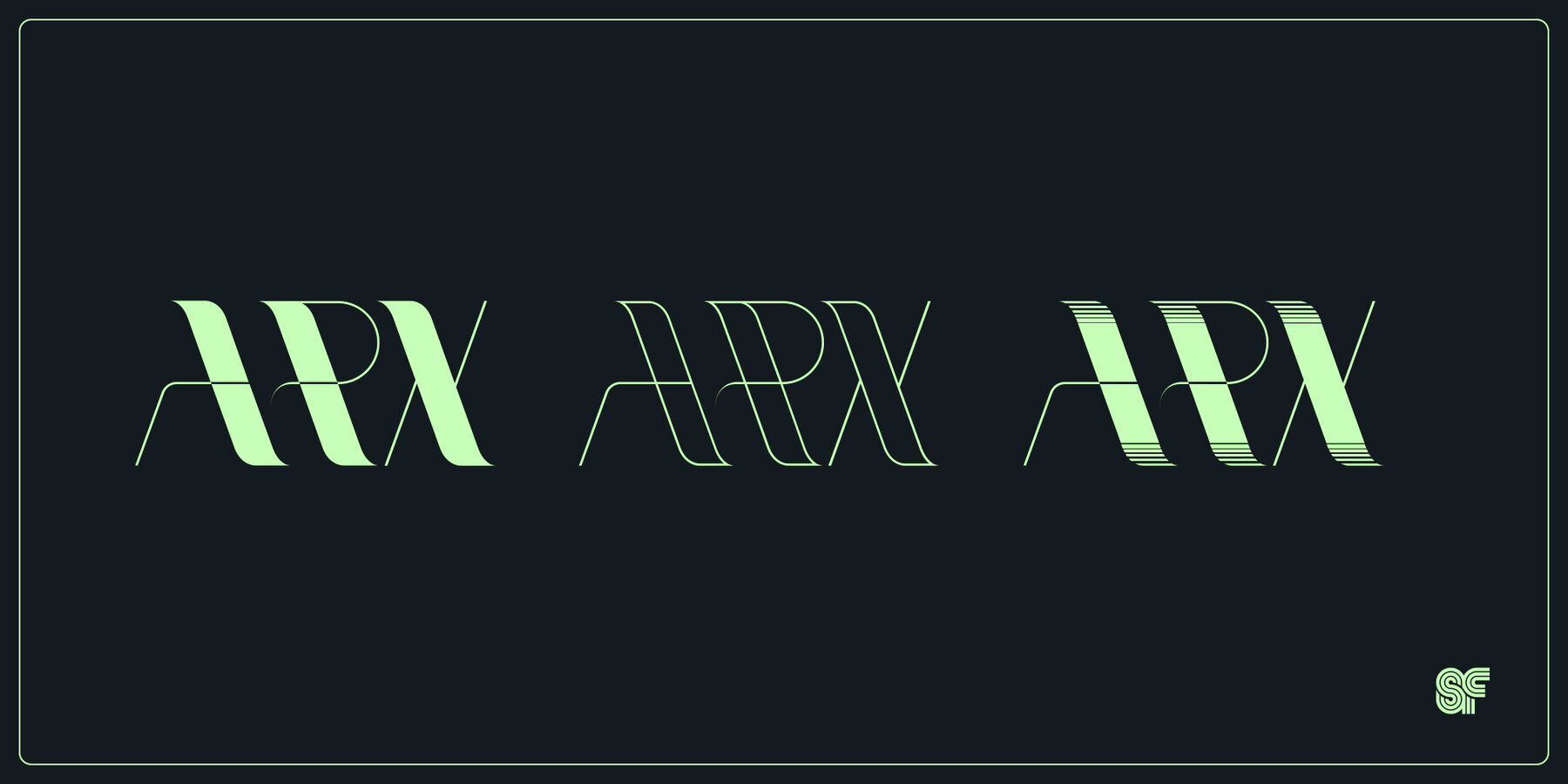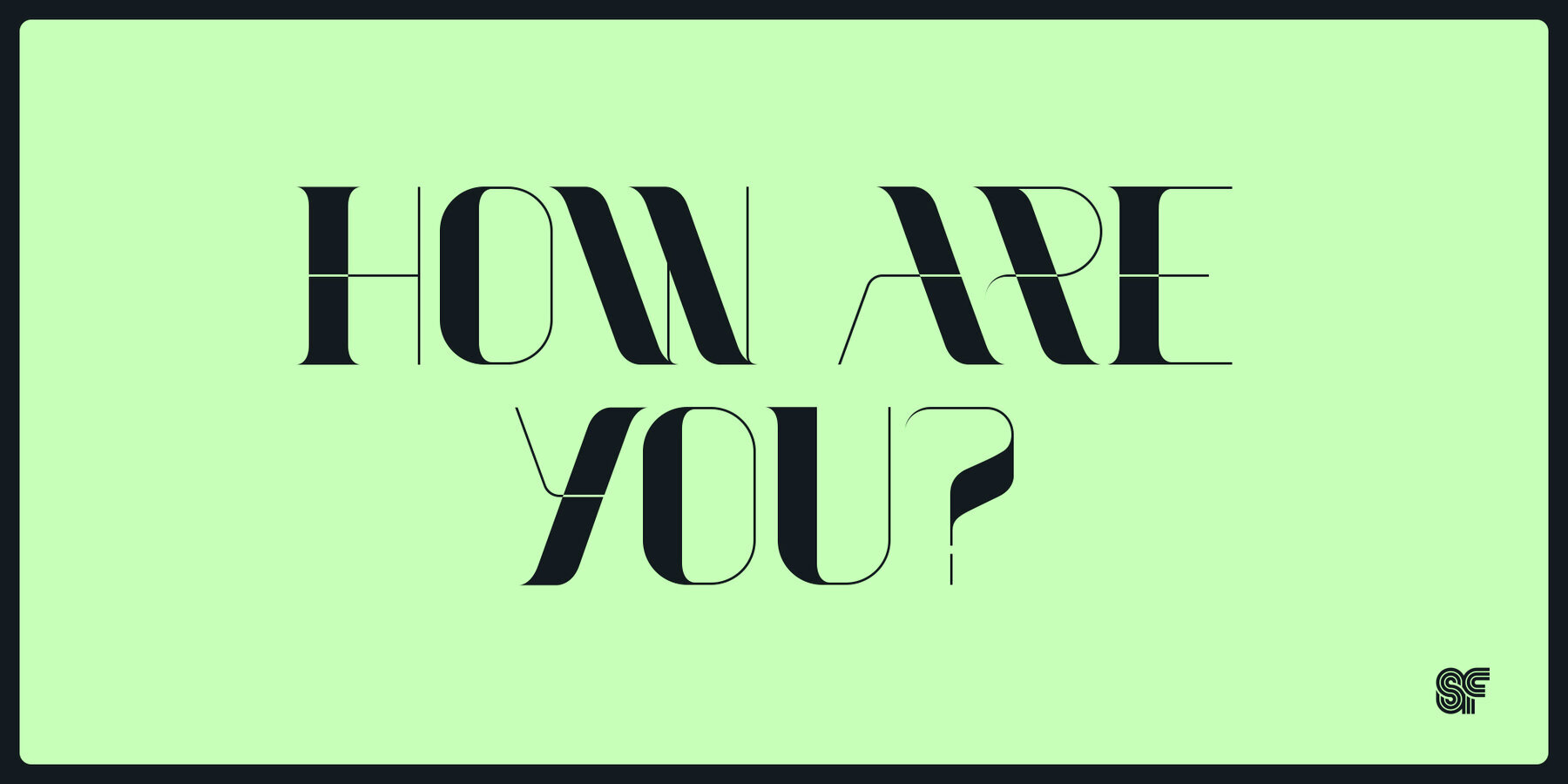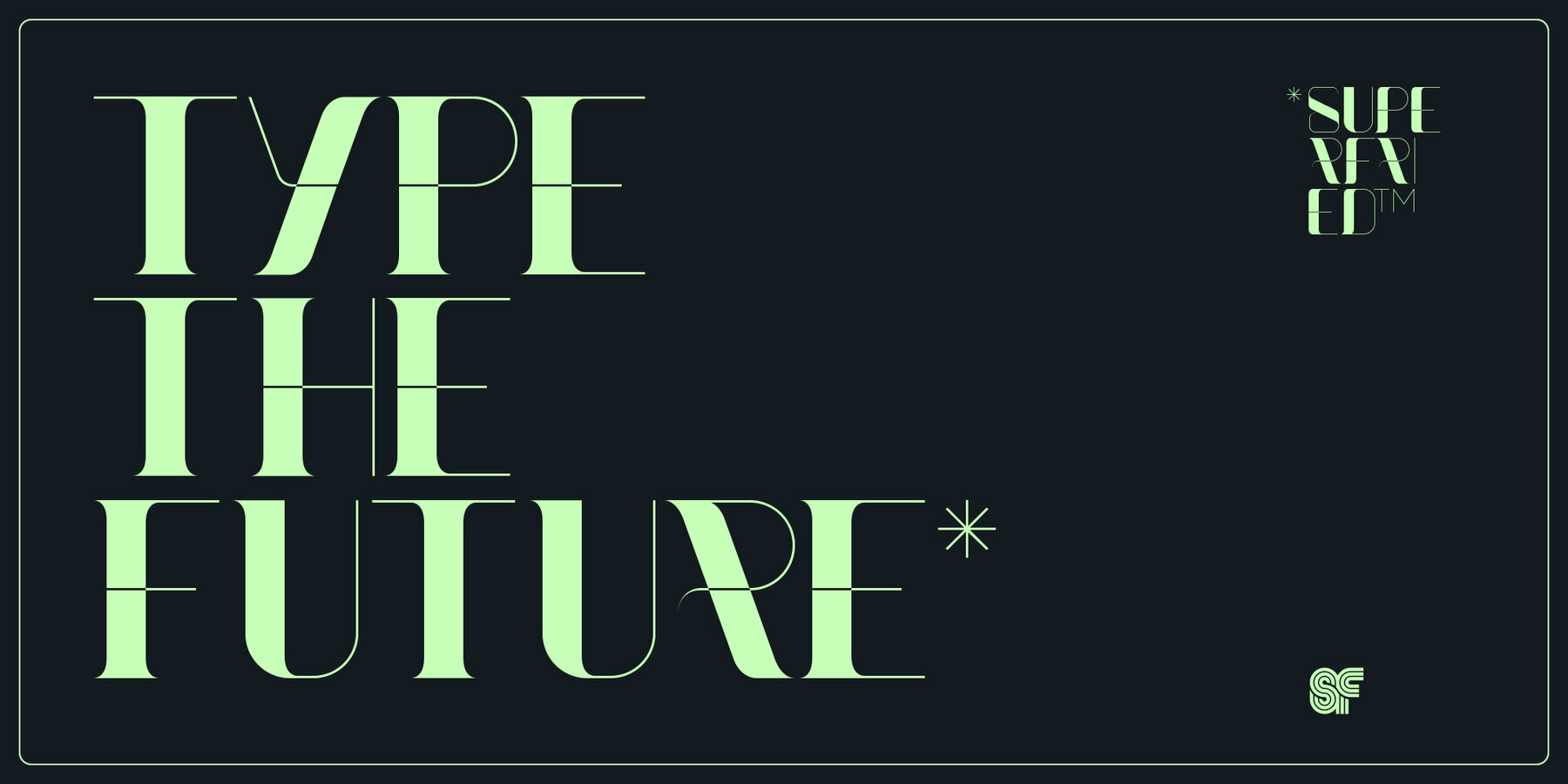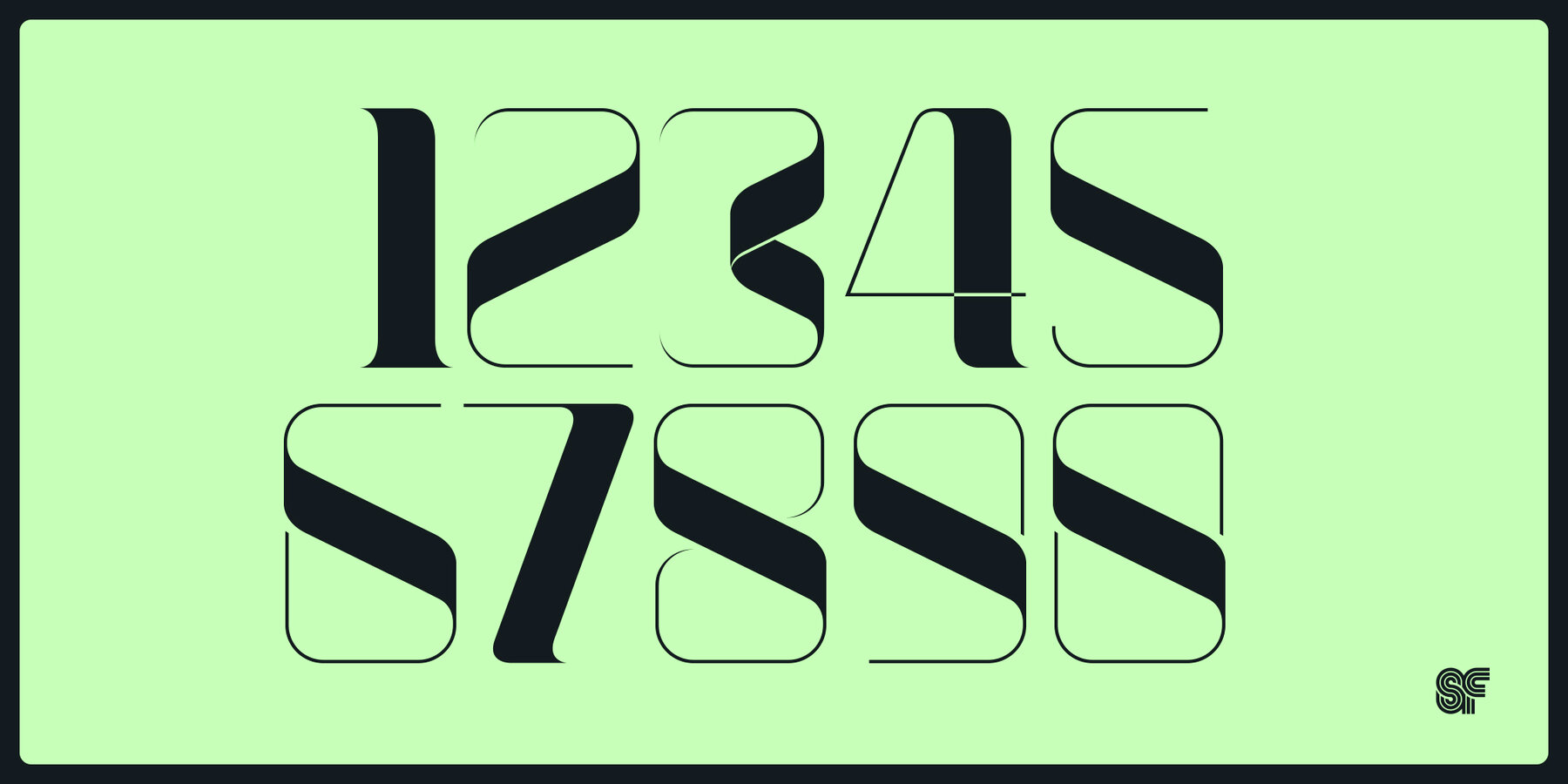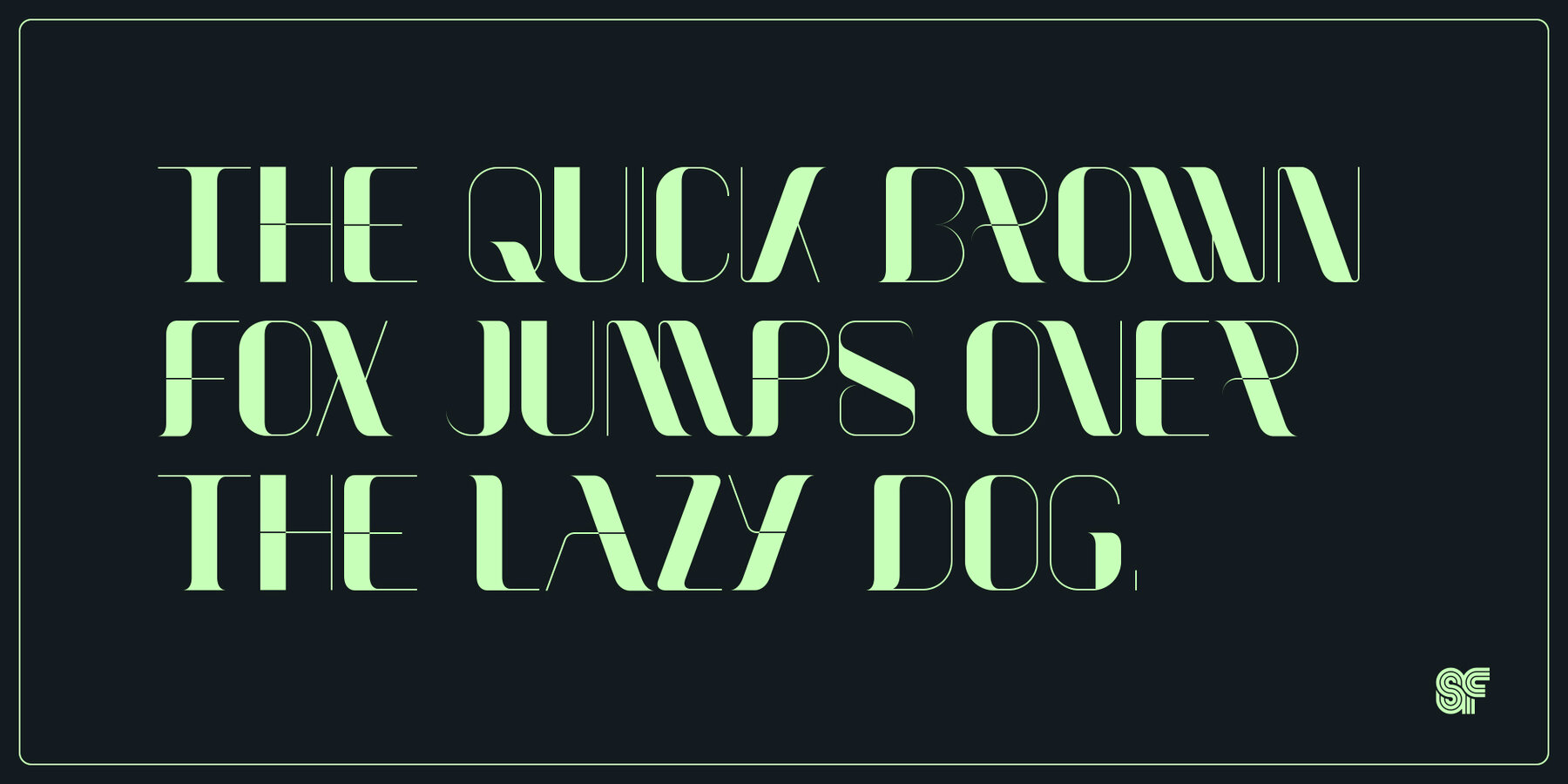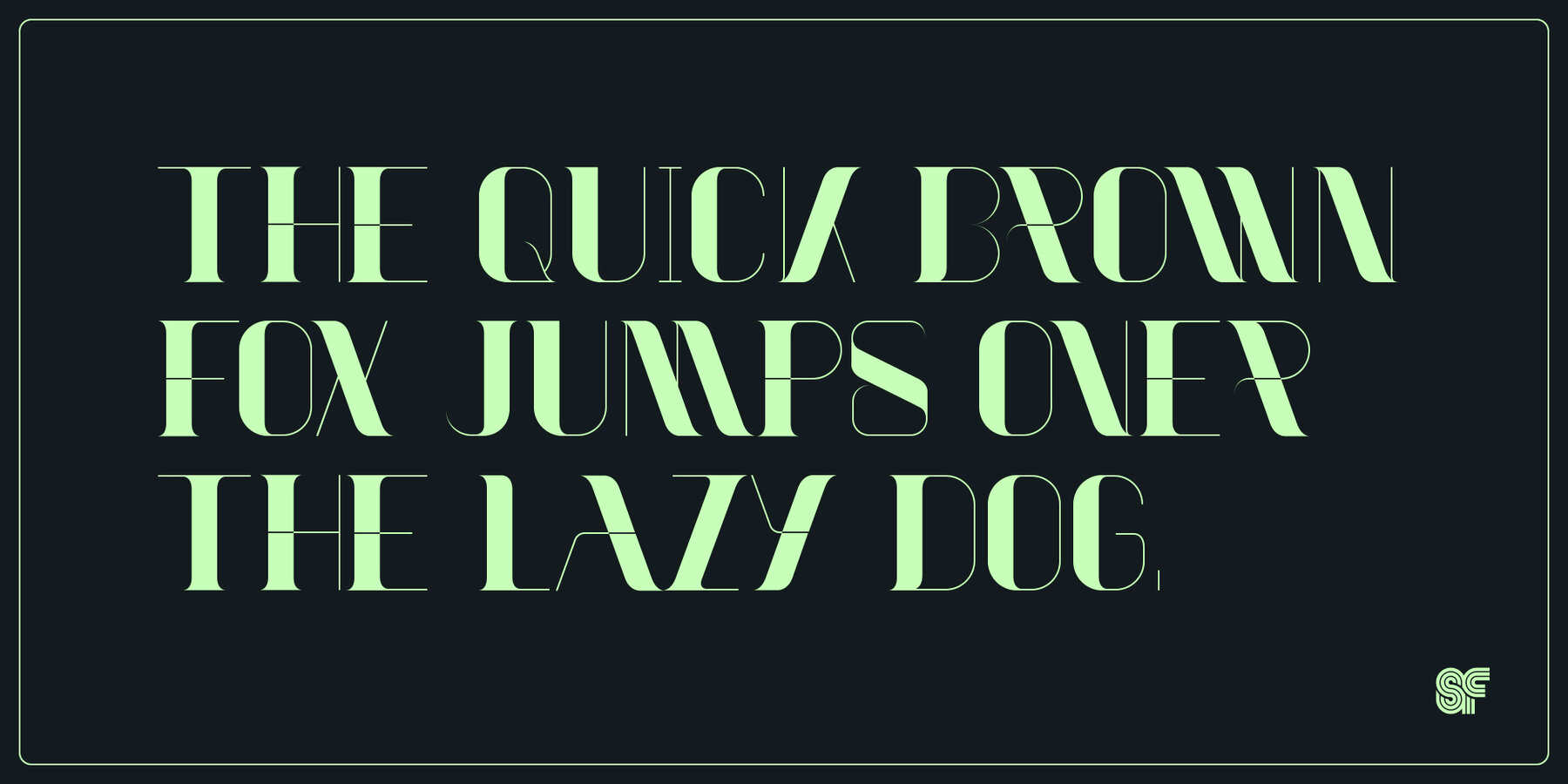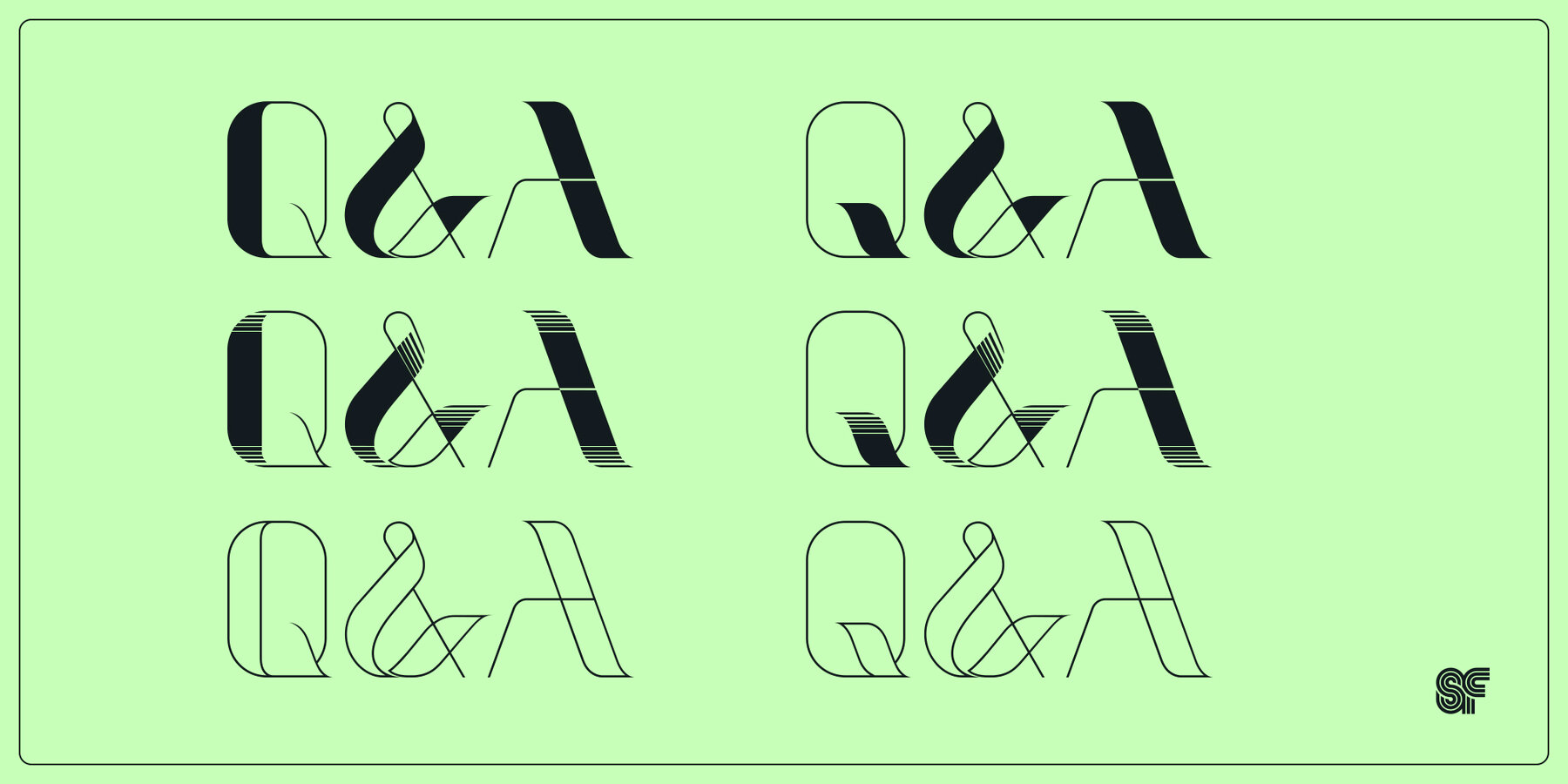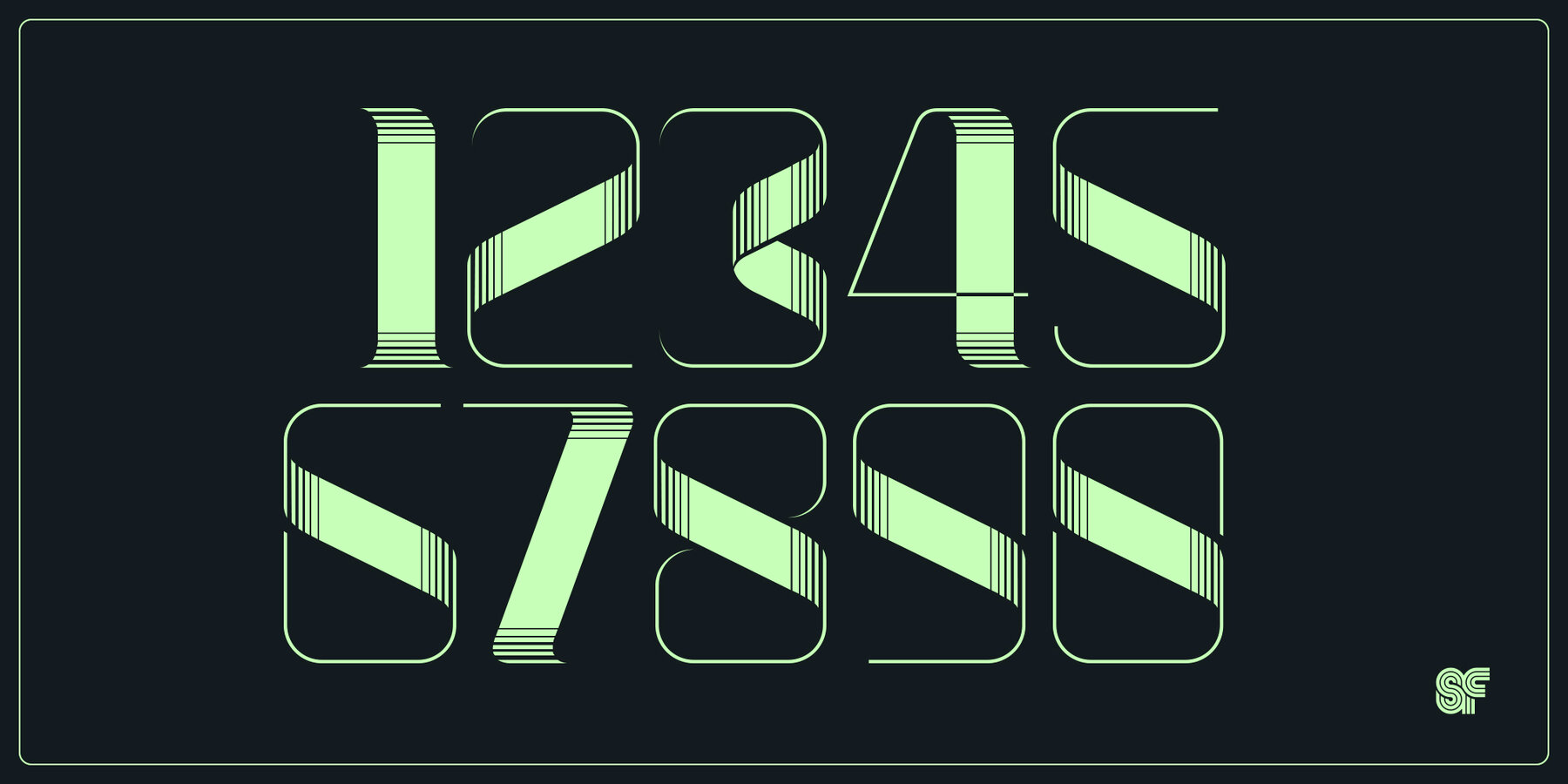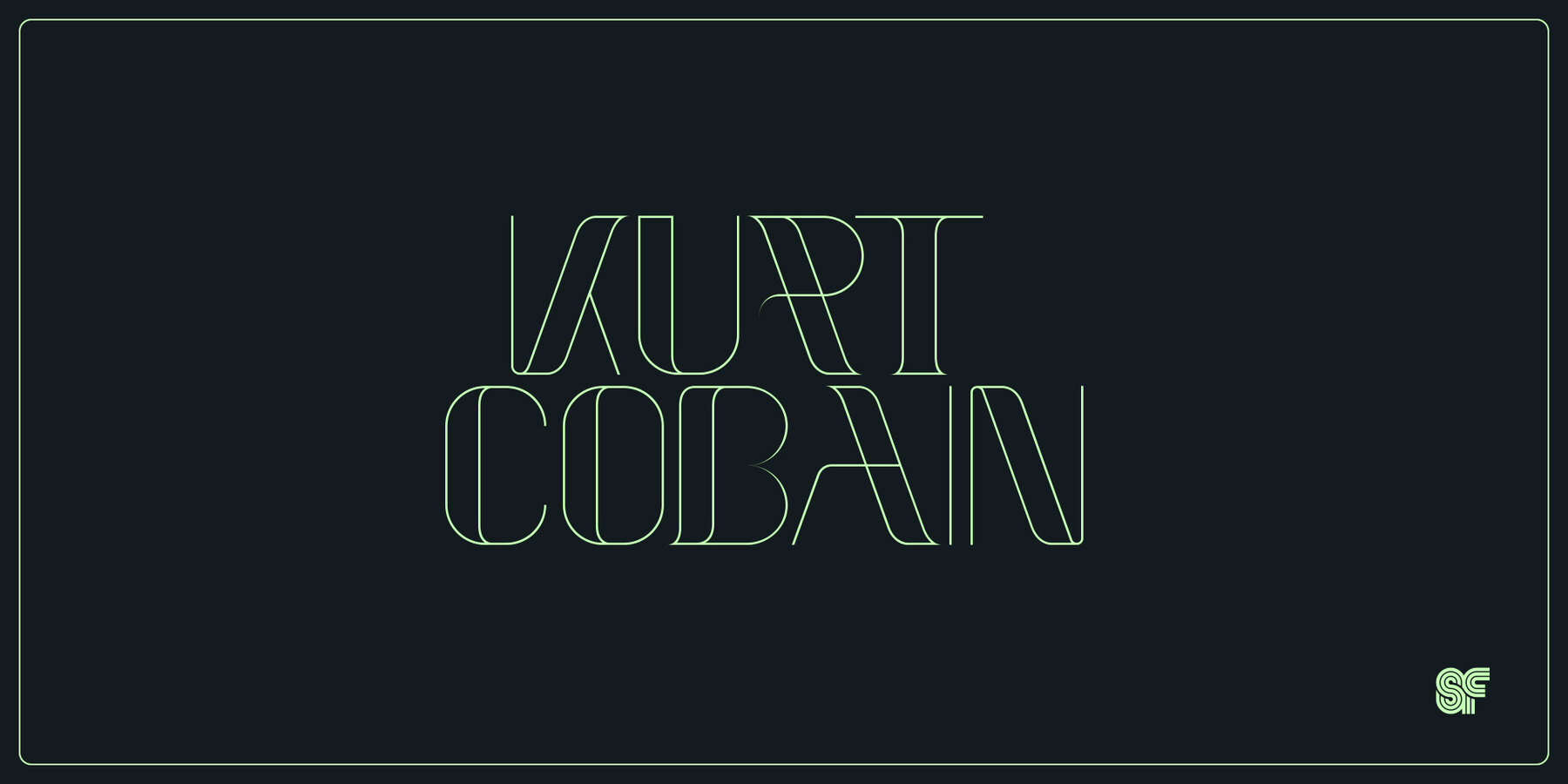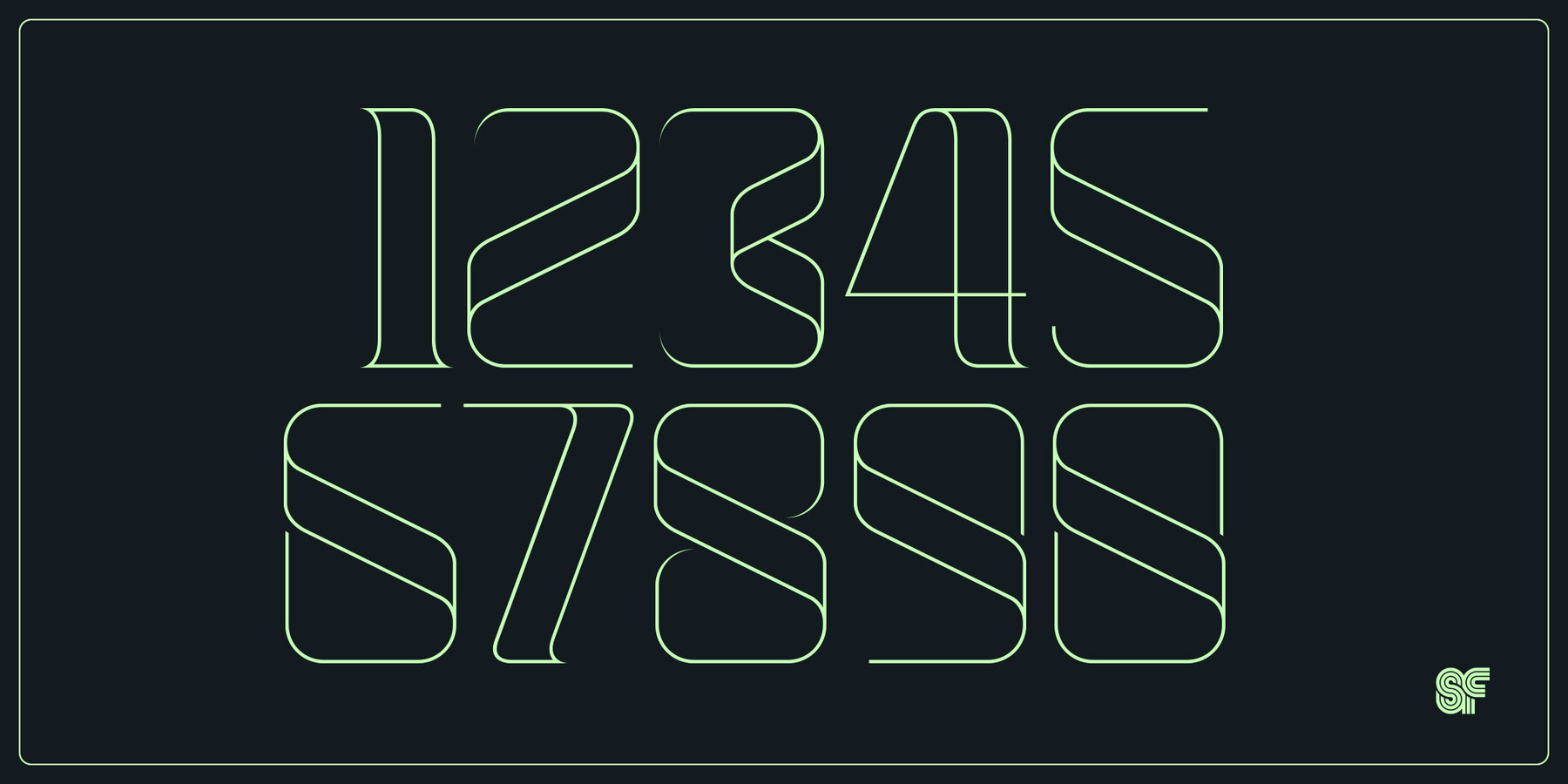
Arx Font
NEW - Remastered for 2025! Arx by Superfried is an elegant, display typeface featuring intricate details designed to be used at large scale. Its Latin name - meaning citadel - connects with the classical features, whilst the phonetic pronunciation nods to the arcs which characterise each glyph. This caps typeface is available in two formats: fade and solid, each featuring two distinct character styles which can be switched via shift. Fade features delicate incisions to add depth and the illusion of 3D shading to the arcs. Solid, as its name suggests, is a cleaner, flat alternative.